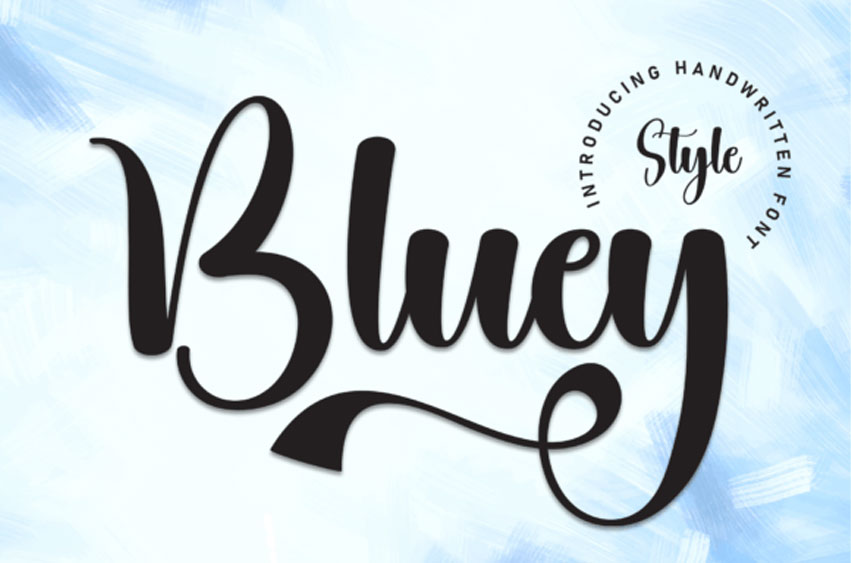
Bluey Script Font is a lovely and timeless handwritten font. It is the best choice for creating eye-catching logos, branding, and quotes.
Every letter has a unique and beautiful touch, which will make your design come alive!